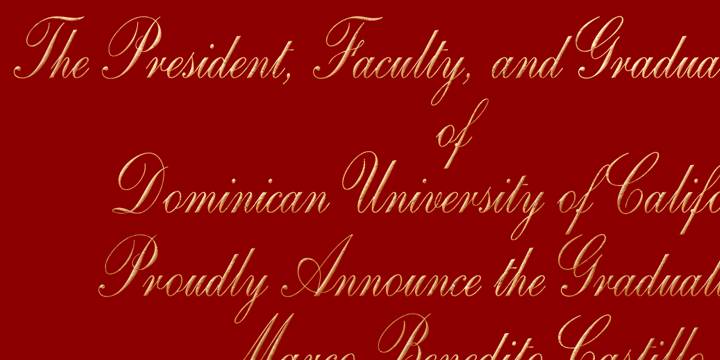
Copperplate Script
One of the most elegant script fonts available, this design is based on calligraphic handwriting called Copperplate because of the copper plates that it was etched into for reproduction. This is the style of calligraphy that my father taught me when I was 10 or 11. Click on the Glyph Chart link at right to view or print all glyphs.